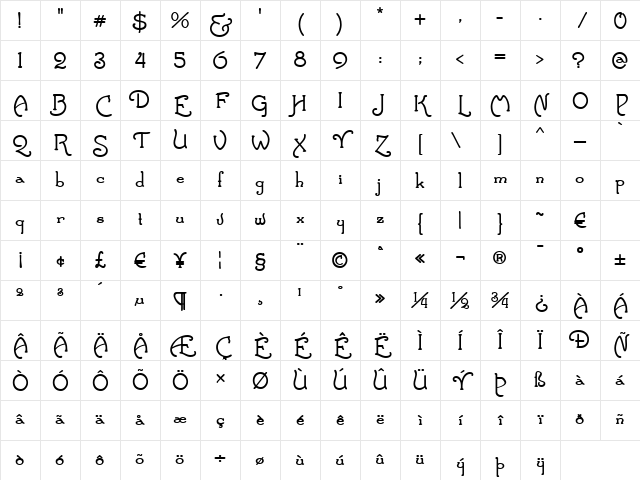
Complete Santa'sSleighFull Bold glyph index. Displaying only characters natively supported by Santa'sSleighFull Bold font.
Santa'sSleighFull is a composed and adaptable typeface that performs quietly and consistently across a wide range of design contexts. Its bold stroke weight gives it real presence on the page.